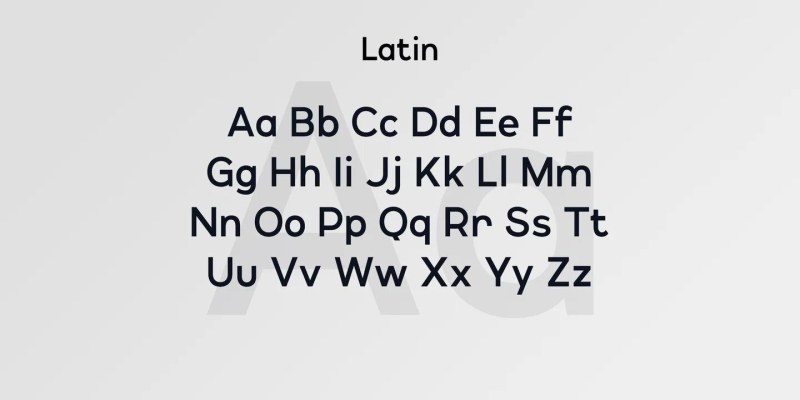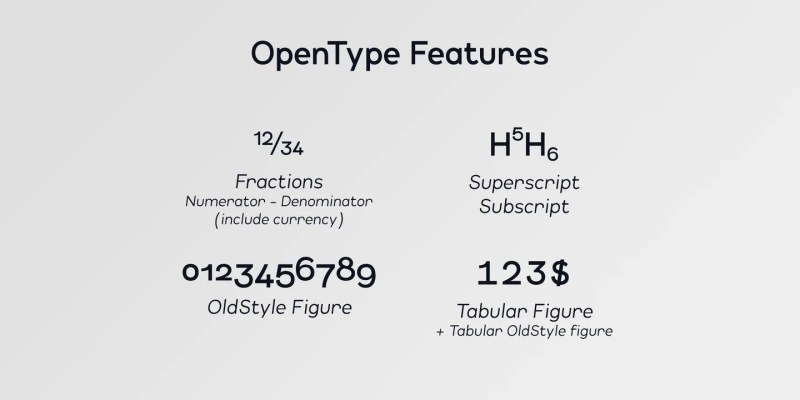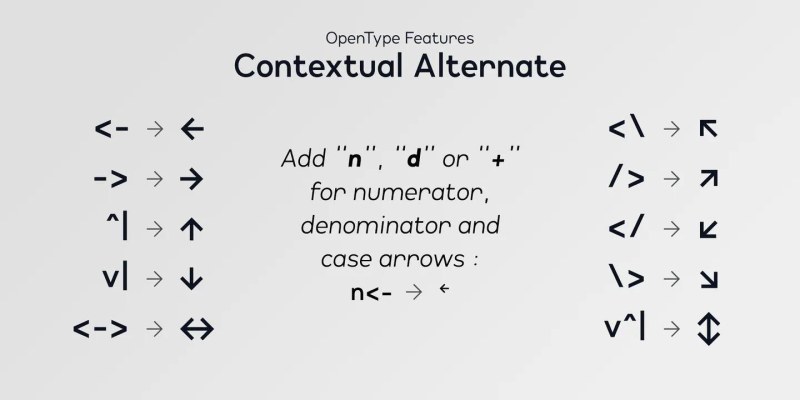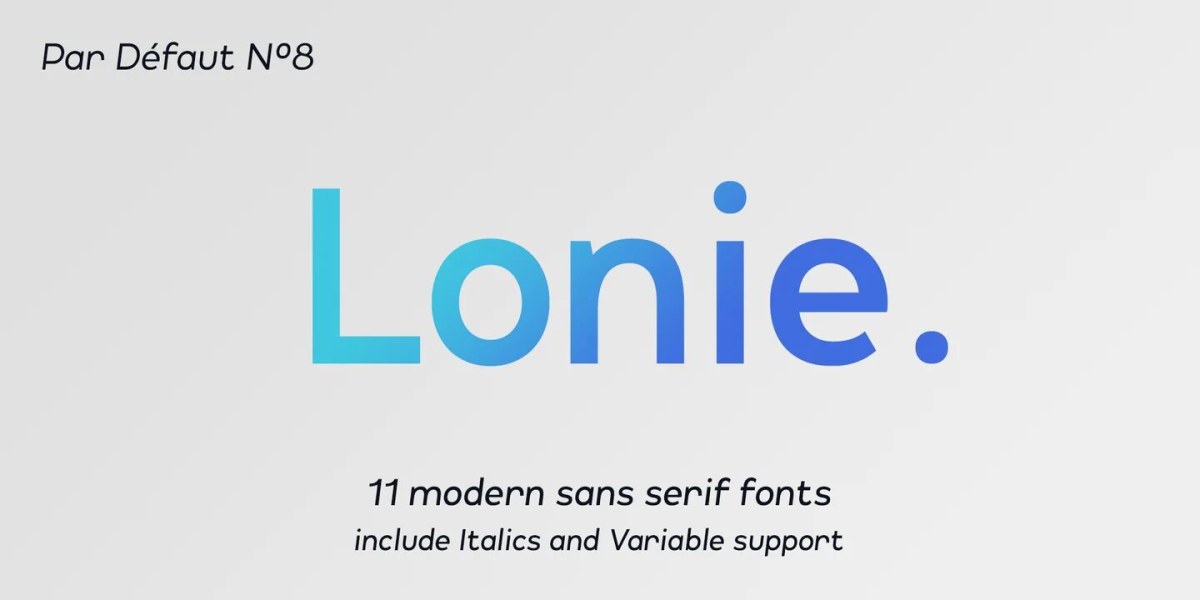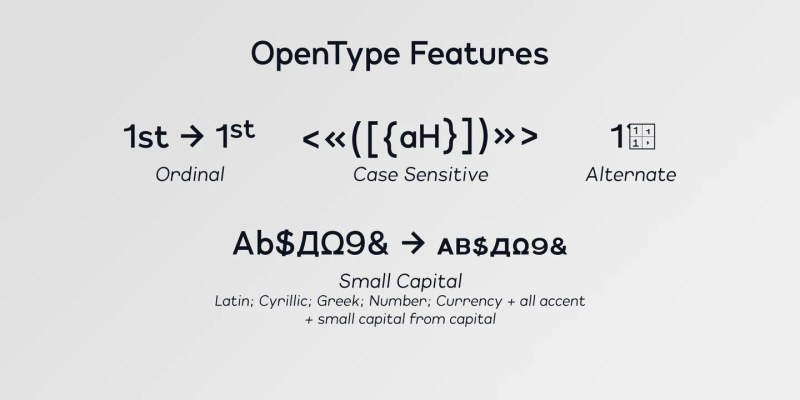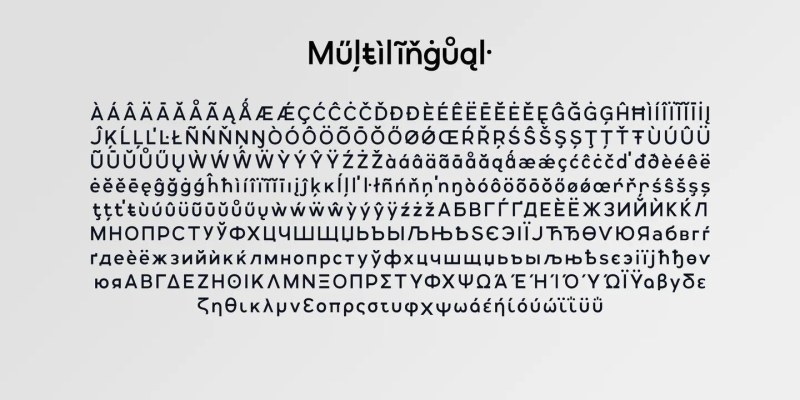
Lonie Font Family
Lonie is sans serif font family (include 5 weight, italic and variable). It contains more than 1200 characters including the Latin, Cyrillic and Greek alphabet. There are also 15 OpenType features (Superior; Inferior; Numerator; Denominator; Fraction; Tabular Lining; ;OldStyle Figure; Small Capital; Small Capitals from Capitals; Contextual Alternate; Case Sensitive; Ordinals; Access All Alternates; Stylistic Set).
Lonie Font Family is a Sans Serif Fonts font that brings a professional and versatile look to your projects. Lonie is sans serif font family (include 5 weight, italic and variable).